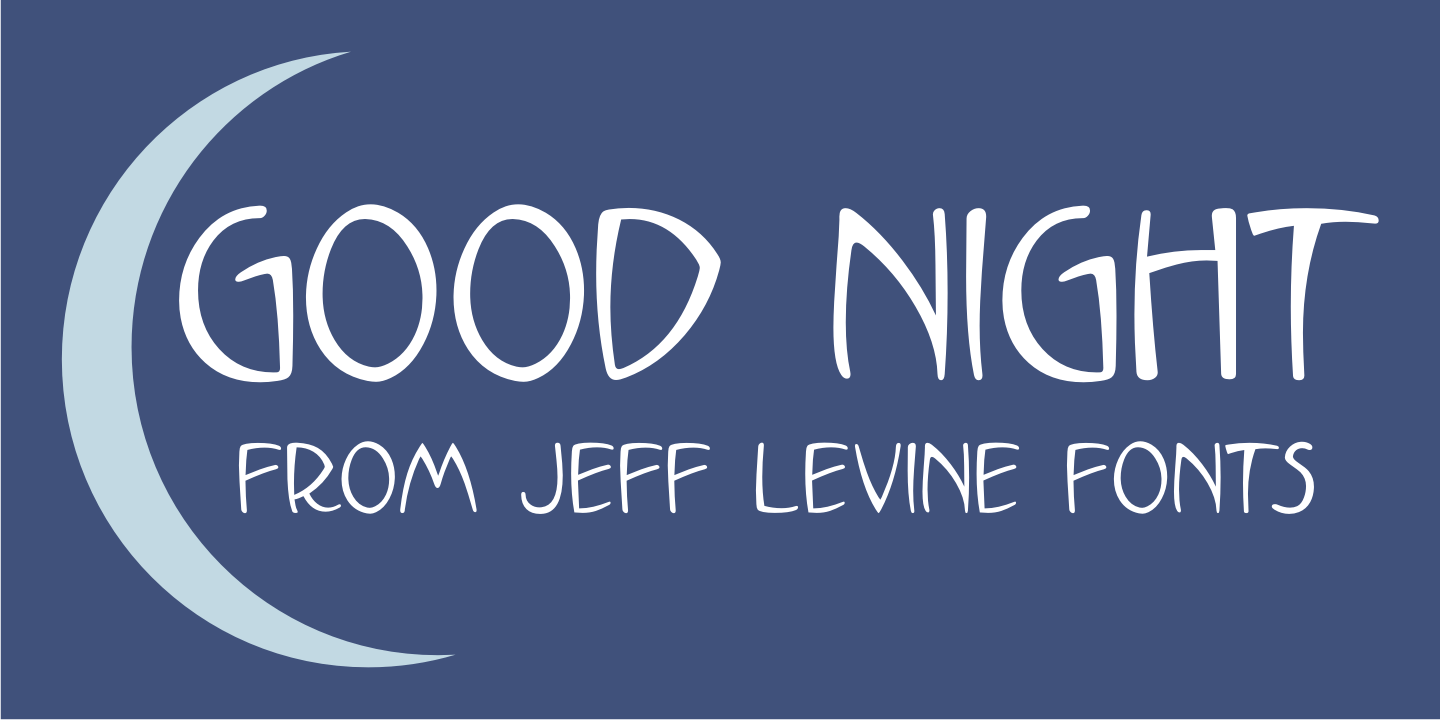
Good Night
The beautiful hand lettering on the sheet music cover for Will R. Anderson's 'Good Night Dear” (circa 1908) features quaint, semi-calligraphic lettering in the Art Nouveau Style.
The song itself was popularized by Billie Burke [best remembered as the Good Witch in 'The Wizard of Oz”] in the musical comedy 'Love Watches”.